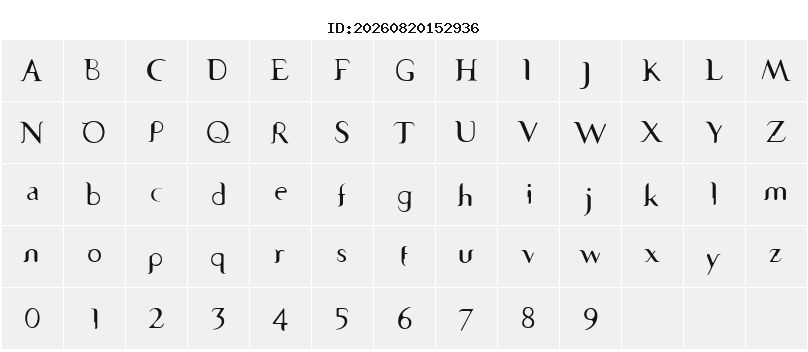
SevenSerifICG Preview
• Font Name: SevenSerifICG
• Full Font Name: SevenSerifICG
• PostScript Name: SevenSerifICG
About SevenSerifICG.ttf
SevenSerifICG.ttf is a modern, elegant sans-serif font designed for ultimate readability and visual harmony. Perfect for branding, headlines, web design, and print materials.